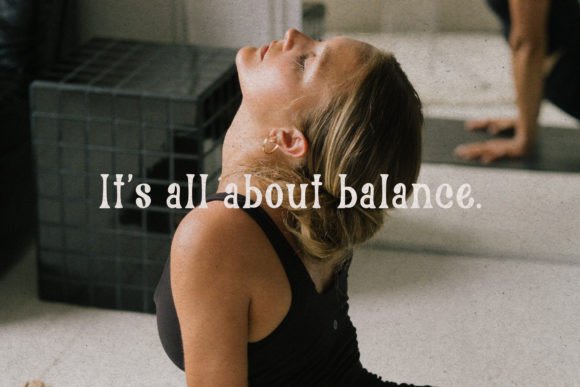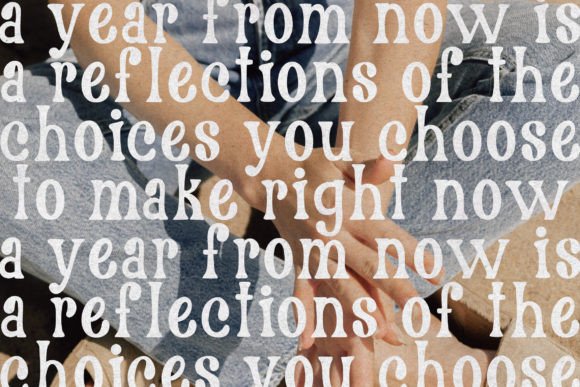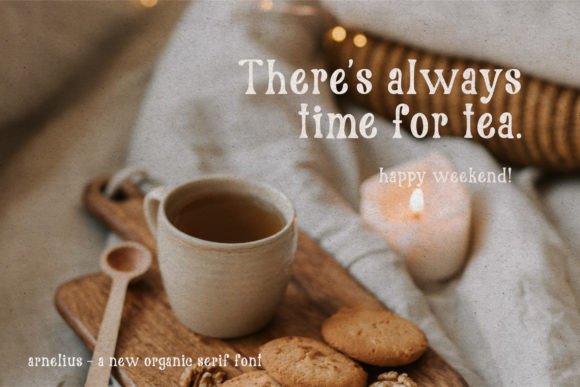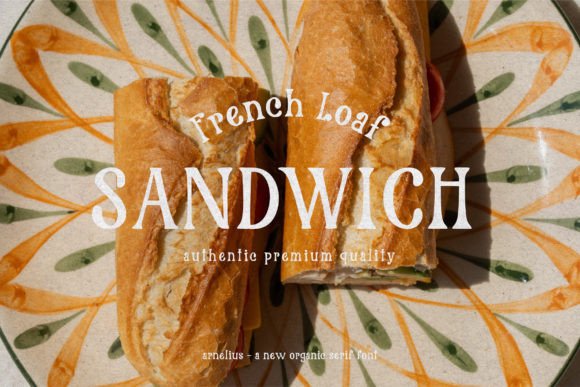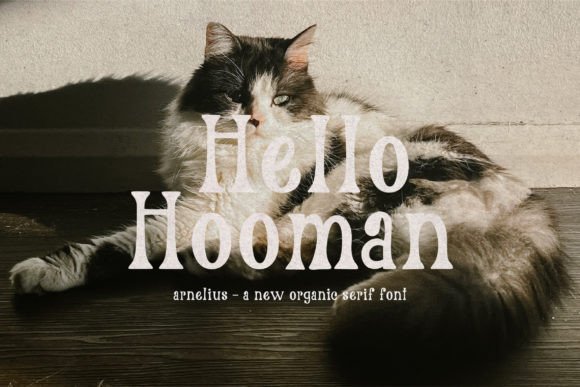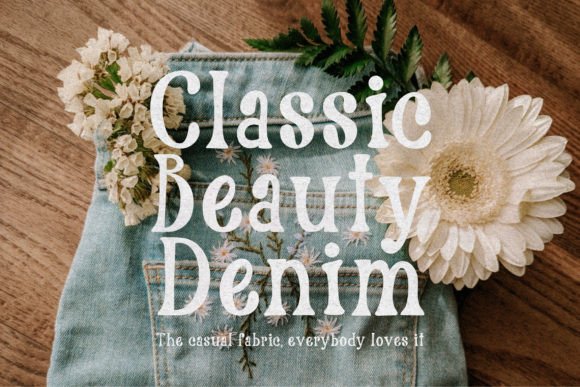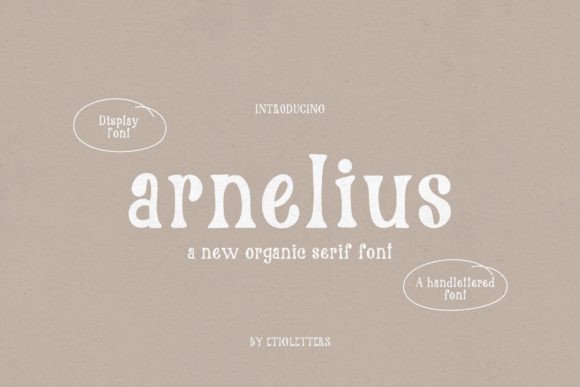
Introducing Arnelius: The Vintage Charm of Antique Serif Fonts
I’ll never forget the design project that led me to discover Arnelius, an antique serif font that has since become a staple in my toolkit. I was working on a branding project for a crafty client who specialized in handmade labels and packaging. The client wanted a font that would evoke a sense of nostalgia and vintage charm, but I was struggling to find the perfect fit. That was until I stumbled upon Arnelius, and it was love at first sight! 💕
A Personal Review of Arnelius
As a designer, I’m always on the lookout for fonts that can bring a unique touch to my projects. Here’s what I love about Arnelius:
- ✨ Elegant and refined, with a sophisticated antique feel
- 💯 Perfect for both headings and body text
- 🎨 Great for design quotes, packaging, labels, and branding with a vintage style
Of course, no font is perfect, and Arnelius does have a few quirks:
- 🤔 Some users may find the font a bit too ornate for certain projects
- ⚠️ Limited support for non-English characters
The Story Behind Arnelius
Arnelius was designed by a team of typographers who were inspired by the classic serif fonts of the past. They wanted to create a font that would evoke a sense of nostalgia and vintage charm, while still being highly legible and versatile. The result is a font that’s perfect for designers, crafters, and creative hobbyists who want to add a touch of elegance and sophistication to their projects.
| What is Arnelius? | Arnelius is an antique serif font that’s perfect for texts, headings, and design projects that require a vintage touch. |
| Is Arnelius suitable for body text? | Yes, Arnelius is highly legible and can be used for body text, but it’s also perfect for headings and titles. |
| Is Arnelius available in different styles? | Yes, Arnelius comes in different styles, including regular, italic, and bold. |